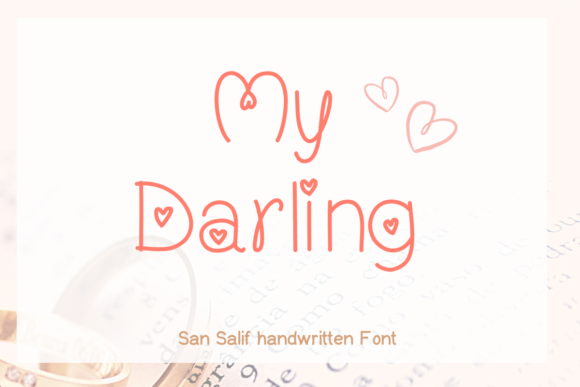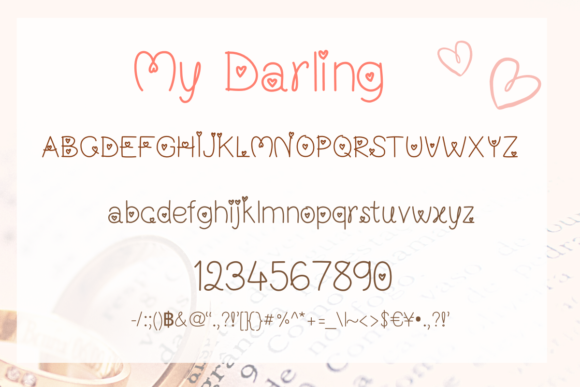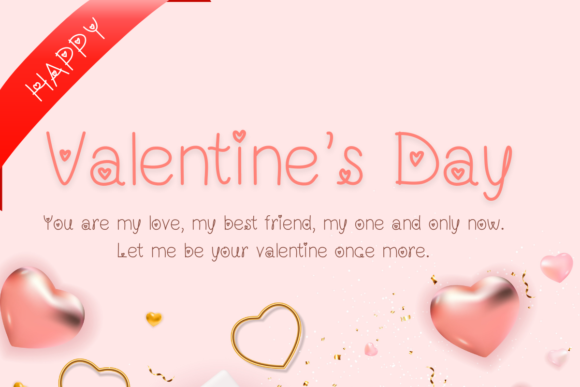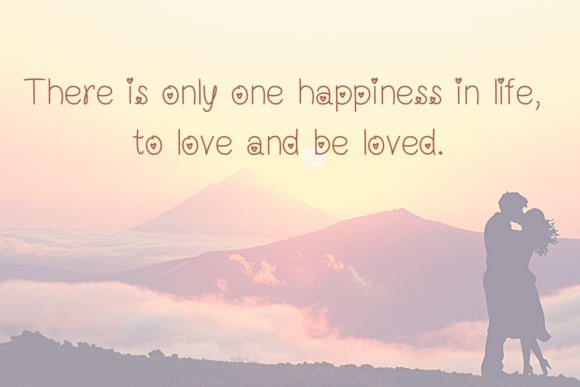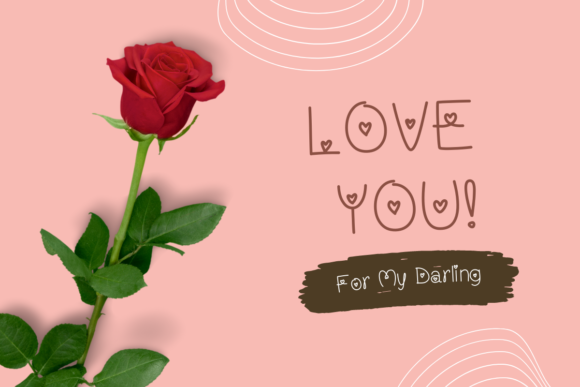
My Darling Font
About My Darling Font
My Darling is cute handwritten font. It is a font that has a curve pattern, a heart shape, and is cute and romantic in itself, suitable for Valentine’s Day projects.
You can use it to create wedding invitations, beautiful stationary art, social media posts, and much more!